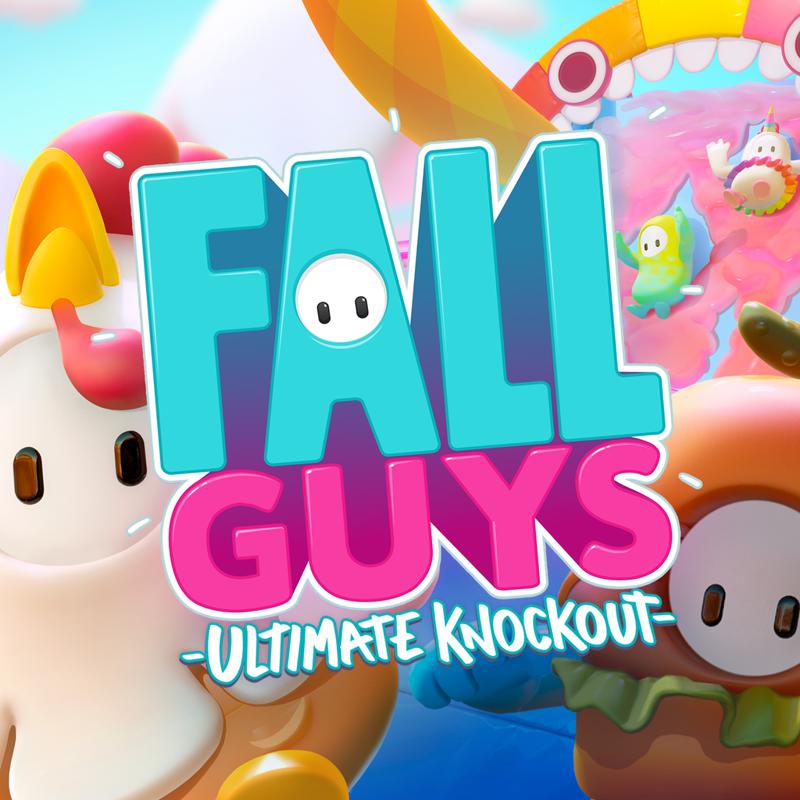
Fall Guys Font
Fonts in UseFall Guys is a massively popular multiplayer game where up to 60 players compete in a series of obstacle courses and challenges, with the goal of being the last one standing. The game is developed by Mediatonic and published by Devolver Digital.
Asap Bold seems to be the closest match for the primary logo font. Developed by Pablo Cosgaya, this rounded sans-serif font collection comes in four weights, each with corresponding italics. It's free for personal and commercial use, and can be downloaded at no cost from the Fonts Used Section.